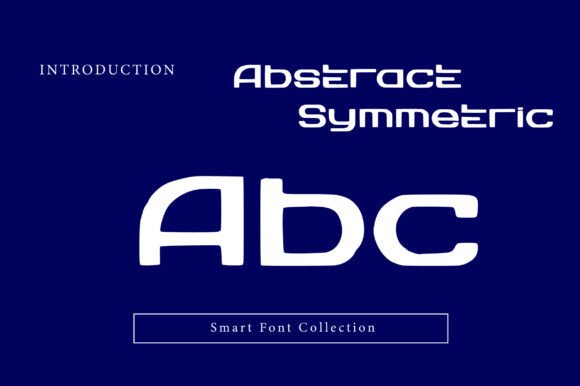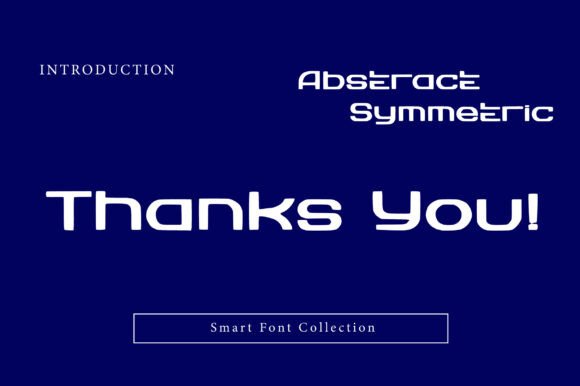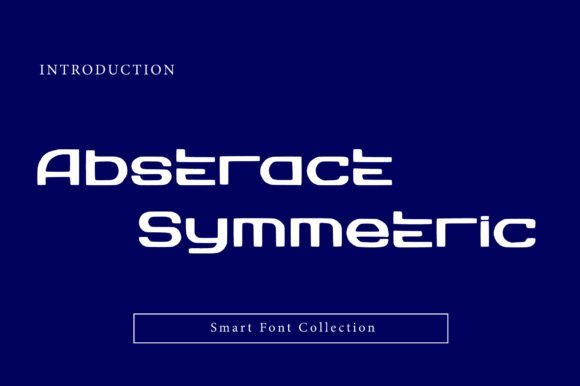
Unlocking the Power of Symmetry in Graphic Design
As a designer, there’s that moment when you’re working on a project and you need a font that screams “modern” and “innovative.” You scroll through your font library, but nothing seems to capture the essence of your vision. That’s where the Abstract Symmetric Font comes in – a game-changer in the world of typography. Designed with strong symmetry and clean structural balance, this futuristic typeface is perfect for logos, technology branding, and sci-fi designs.
What sets the Abstract Symmetric Font apart is its unique symmetrical construction, delivering a powerful and professional look that stands out in contemporary graphic design projects. With its bold, high-tech visual identity, this font is a must-have for designers who want to create eye-catching and modern digital artwork. Whether you’re working on a logo, UI heading, or poster, the Abstract Symmetric Font is sure to elevate your design to the next level.
Abstract Symmetric Font Key Features
- Font Family: Abstract Symmetric Font is a unique, hand-crafted font family designed to evoke a sense of balance and harmony.
- Character Set: Supports a wide range of languages, including Latin, Cyrillic, and Greek alphabets, with over 1000 glyphs per font weight.
- Font Weights: Available in 6 weights, ranging from Light to Extra Bold, providing versatility for various design applications.
- Unique Characteristics: The font’s symmetrical design and subtle texture elements create a visually appealing and sophisticated look, perfect for corporate branding, luxury packaging, and high-end publishing.
Designer Review: Abstract Symmetric Font
When I first saw the Abstract Symmetric Font, I was immediately drawn to its unique and eye-catching design ✨. The combination of bold lines, geometric shapes, and subtle texture creates a visually striking effect that’s sure to grab attention. The font’s symmetrical design also makes it versatile and easy to use in various design contexts, from logos to typography-heavy branding materials.
- Highly customizable: The font’s geometric design makes it easy to customize and modify to fit specific design needs.
- Excellent legibility: Despite its abstract design, the font remains highly legible and easy to read, even at small sizes.
- Wide range of uses: The font’s versatility makes it suitable for a wide range of design applications, from logos to digital interfaces.
However, there are some limitations to consider ⚠️:
- Limited emotional resonance: While the font is visually striking, it may not evoke a strong emotional response from viewers.
- May not be suitable for all industries: The font’s abstract design may not be suitable for industries that require a more traditional or conservative look.
Overall, I think the Abstract Symmetric Font is a great choice for designers looking to add some visual interest to their work. While it may not be perfect for every design project, its unique design and high level of customization make it a valuable tool in any designer’s toolkit.
Can I customize the color and style of Abstract Symmetric Font?